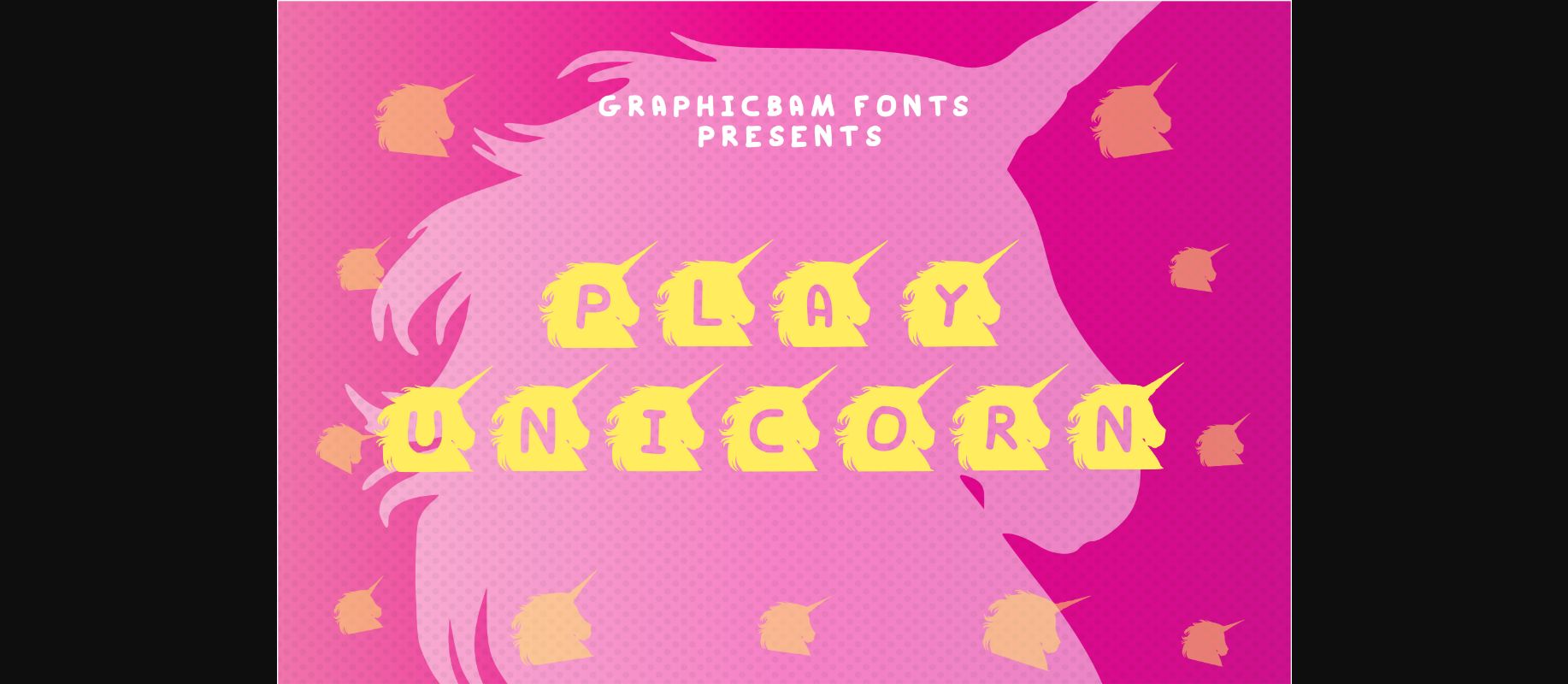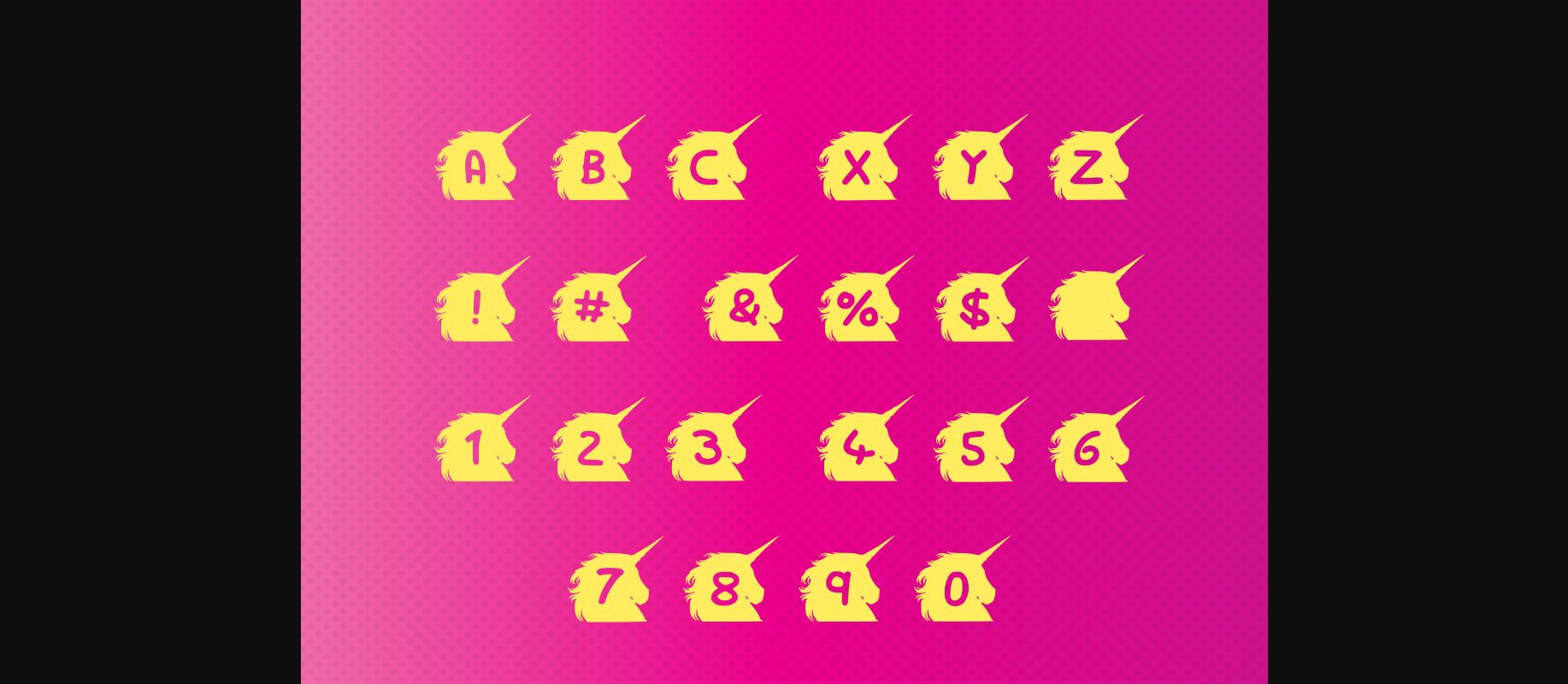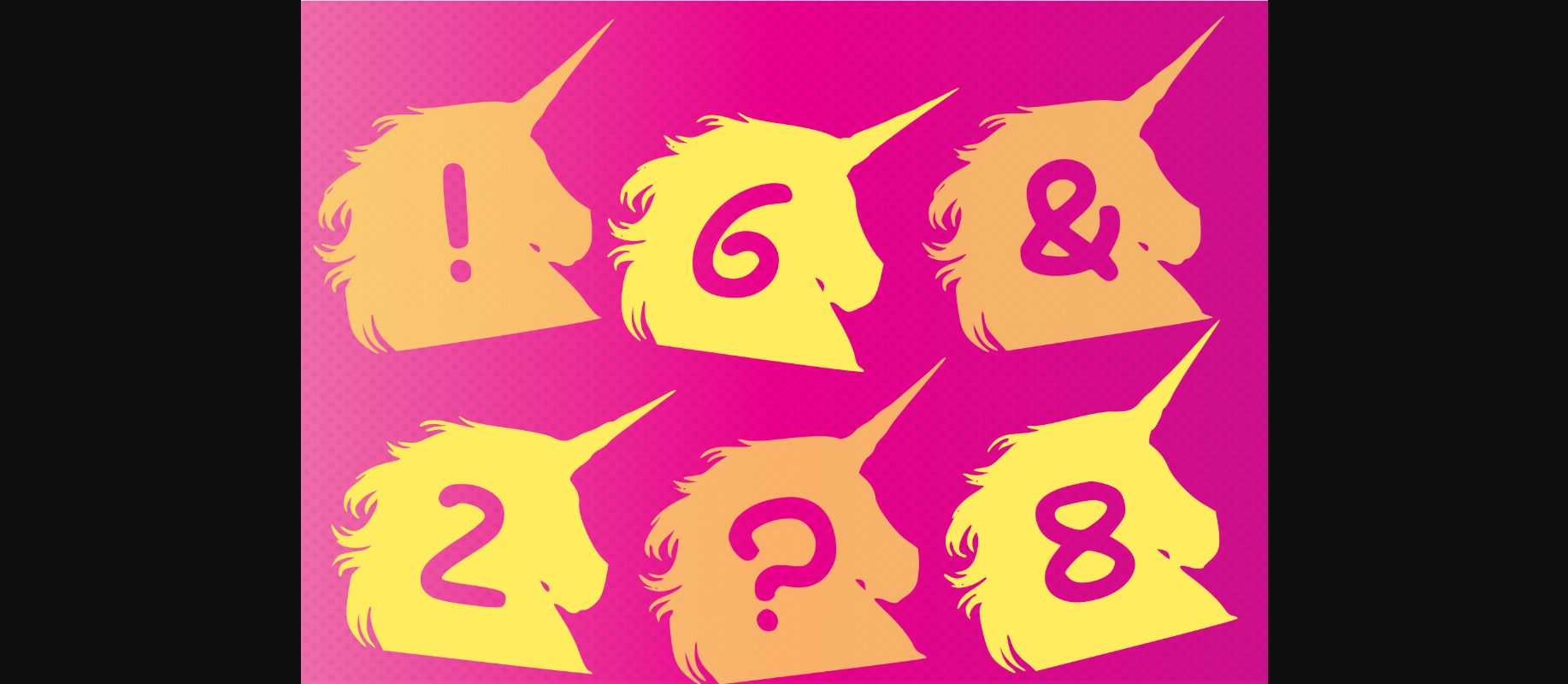
HomeDecorative FontsPlay Unicorn Font Decorative Fonts Play Unicorn Font FacebookXPinterestWhatsApp 1 of 5 ... Play Unicorn Font Poster 2... Play Unicorn Font Poster 3... Play Unicorn Font Poster 4... Play Unicorn Font Poster 5... About Play Unicorn Font Play Unicorn is a cool looking and interesting decorative font, featuring a unicorn on each character. Whether you’re using it for crafts, digital design, presentations, or making greeting cards, it’s the perfect choice. DOWNLOAD NOW People also explored Romullus Font Quiet Meows Font Mary Alice Font Della Della Font Barlie Font Lovely Balloon Font Better Matter Font Clonoid Swit Pruit Font 283 0 TagsPlay Unicorn Font Previous articlePlay Candy Floss FontNext articlePlay Bomb Font LEAVE A REPLY Cancel reply Comment: Please enter your comment! Name:* Please enter your name here Email:* You have entered an incorrect email address! Please enter your email address here Website: Save my name, email, and website in this browser for the next time I comment. Personal Use Free Triangular Curves Personal Use Free Read more about this font Lover Loves Personal Use Free Read more about this font Dr.Marz Personal Use Free Read more about this font Cheque Personal Use Free Read more about this font BLOG How to Install and Use Fonts on Windows, macOS, and Web Projects How to Install and Use Fonts on Windows, macOS, and Web Projects Fonts are a crucial part of design and branding. Whether you’re designing a... Elegant Wedding Invitation Fonts – Handwritten & Script Fonts Free Fonts Risk: Why Free Fonts Can Be Dangerous for Designers 5 Fonts That Will Dominate Design Trends in 2026